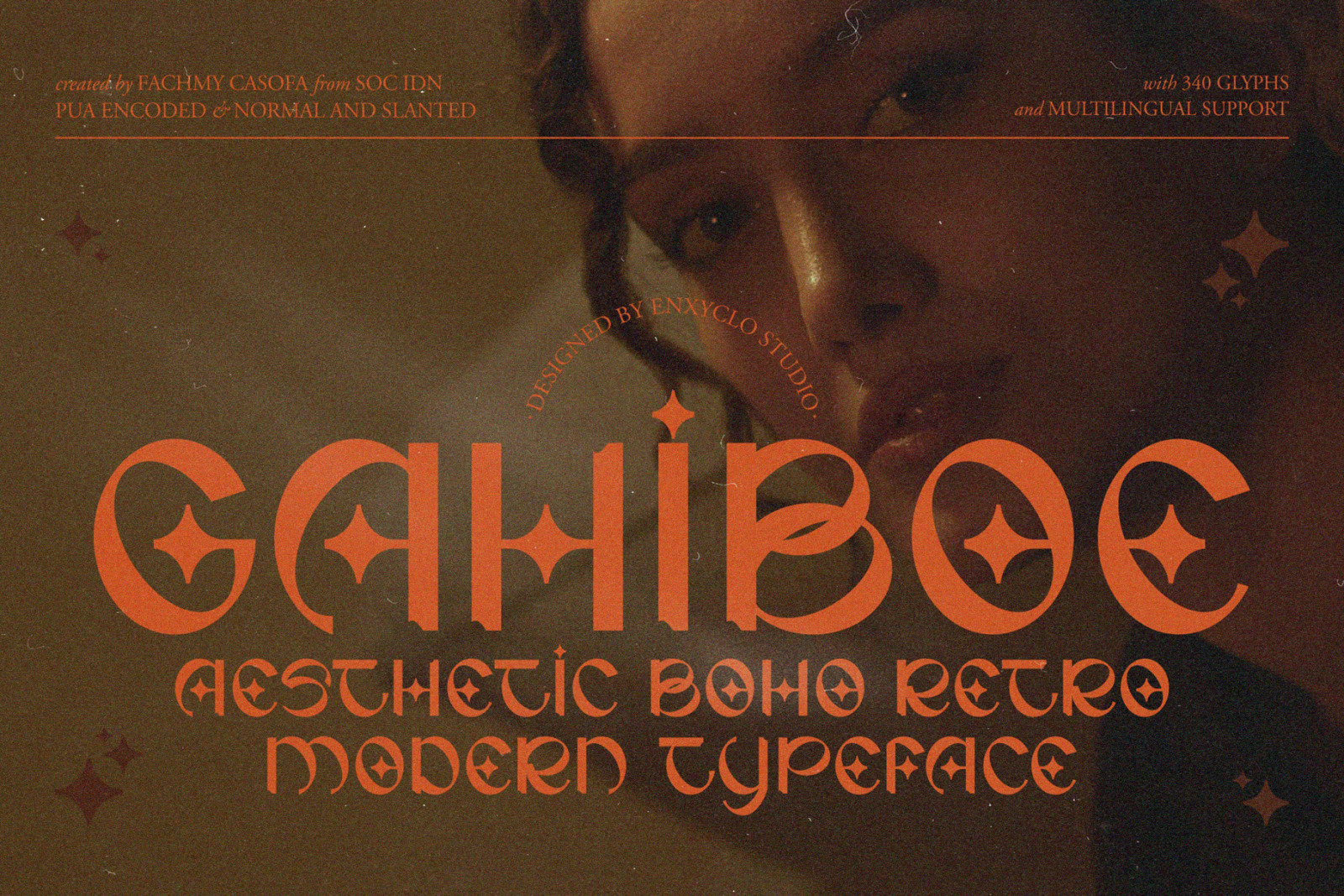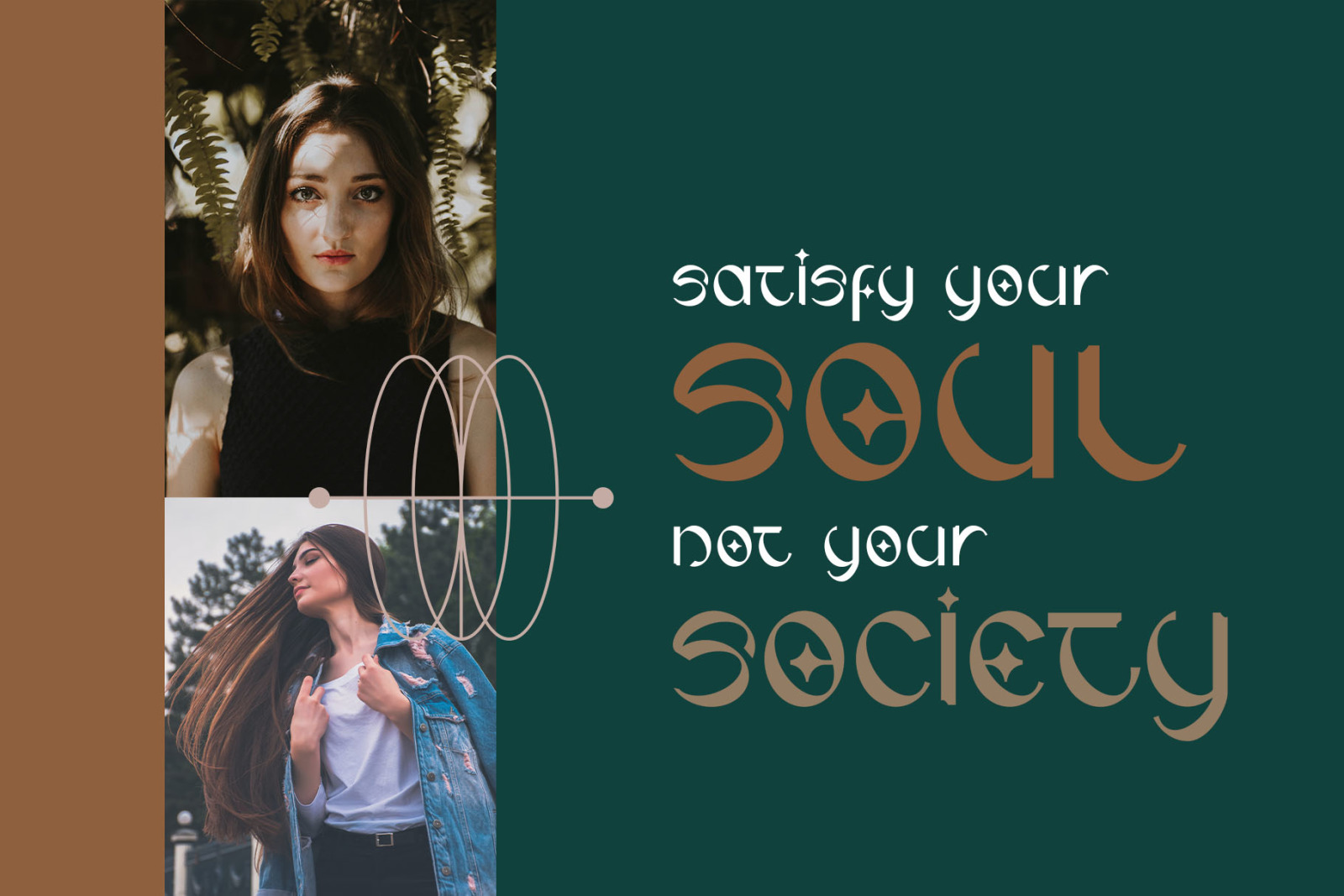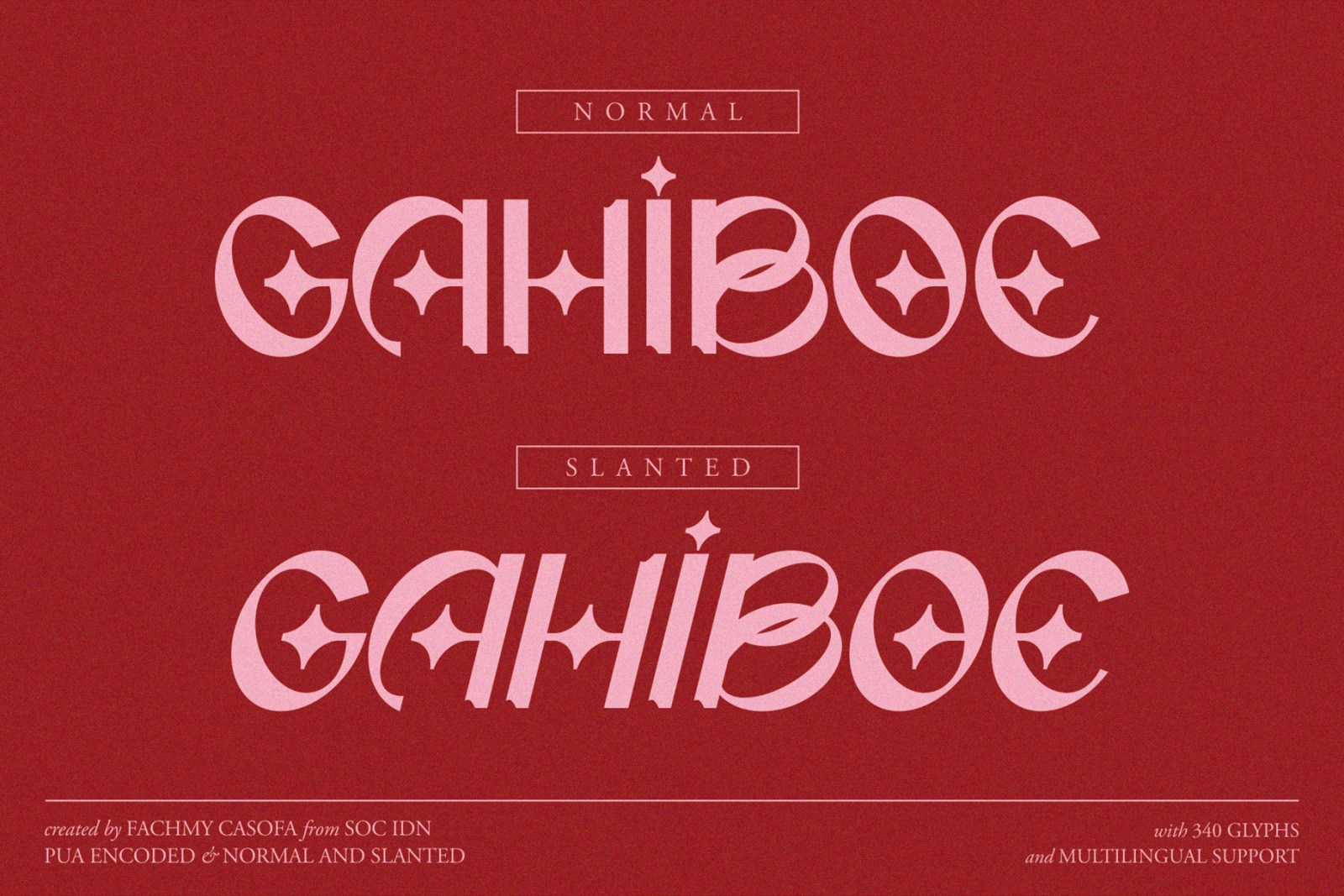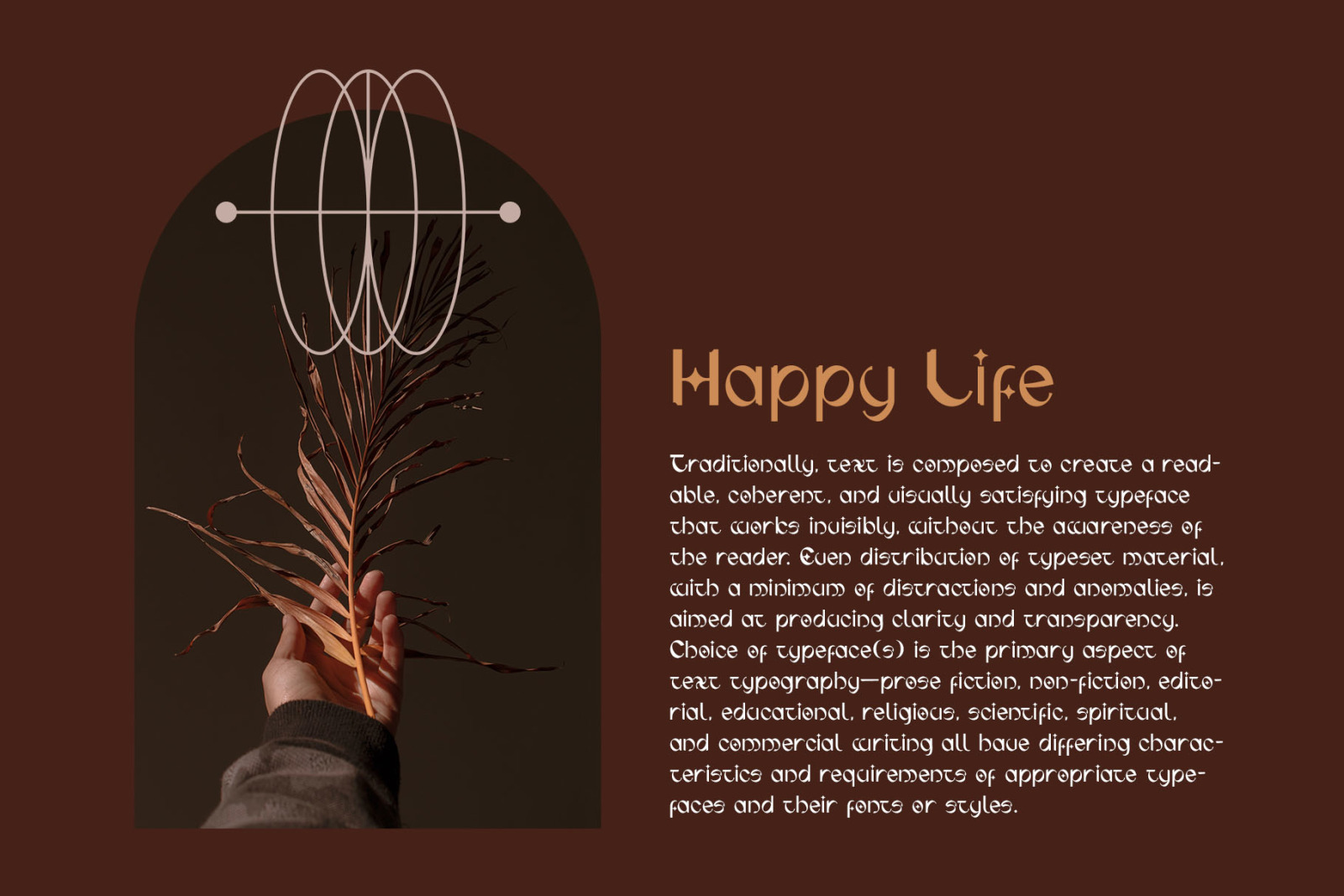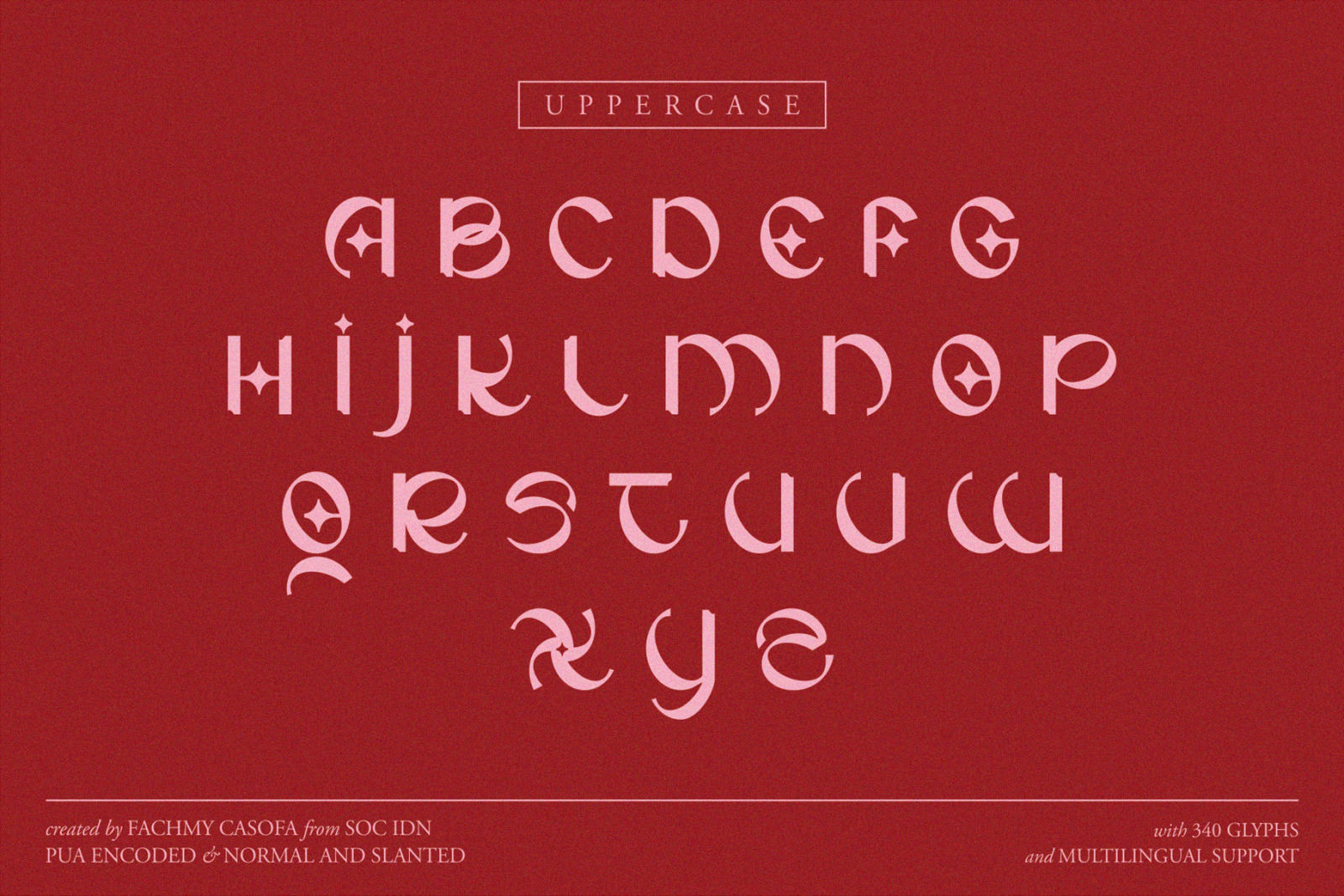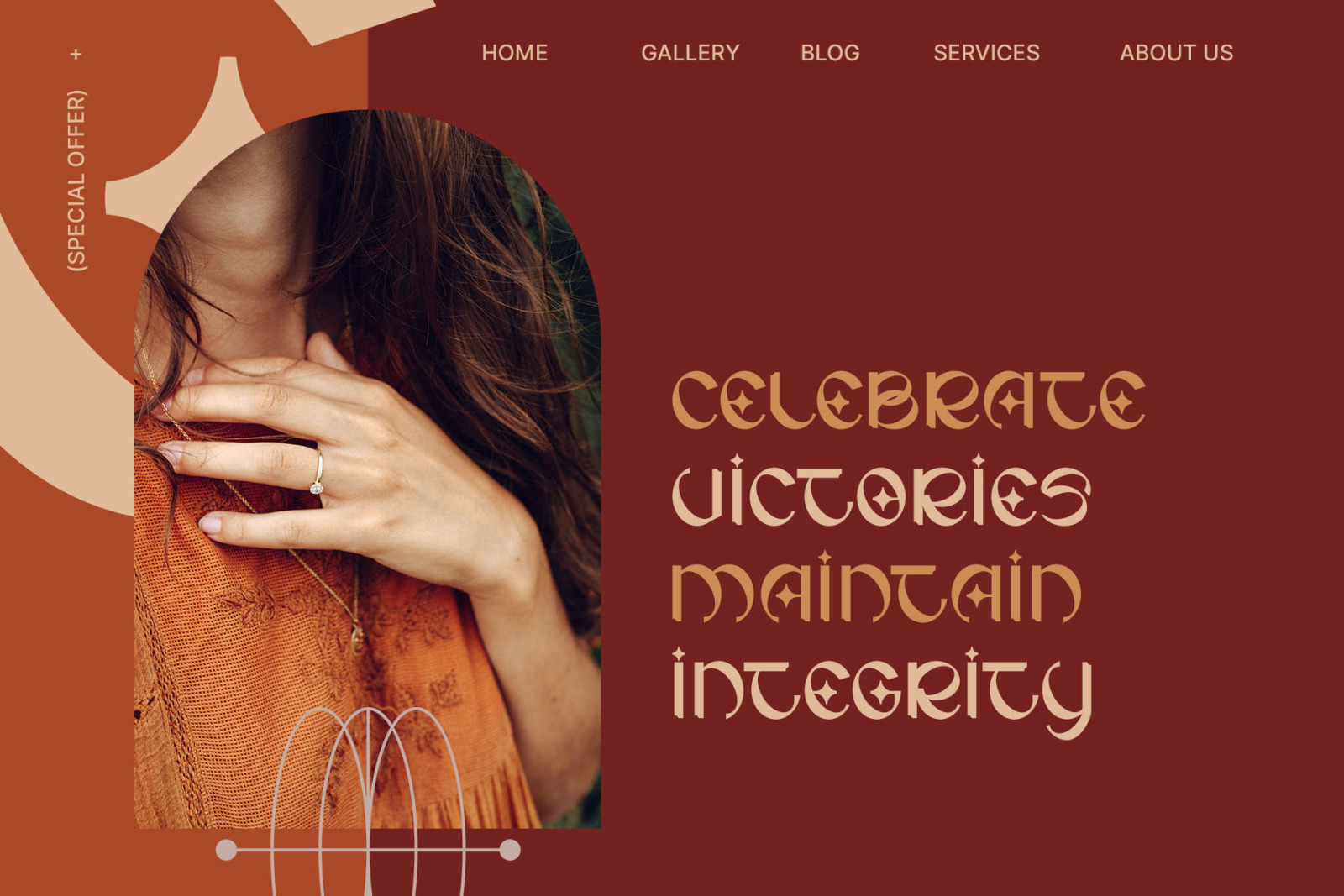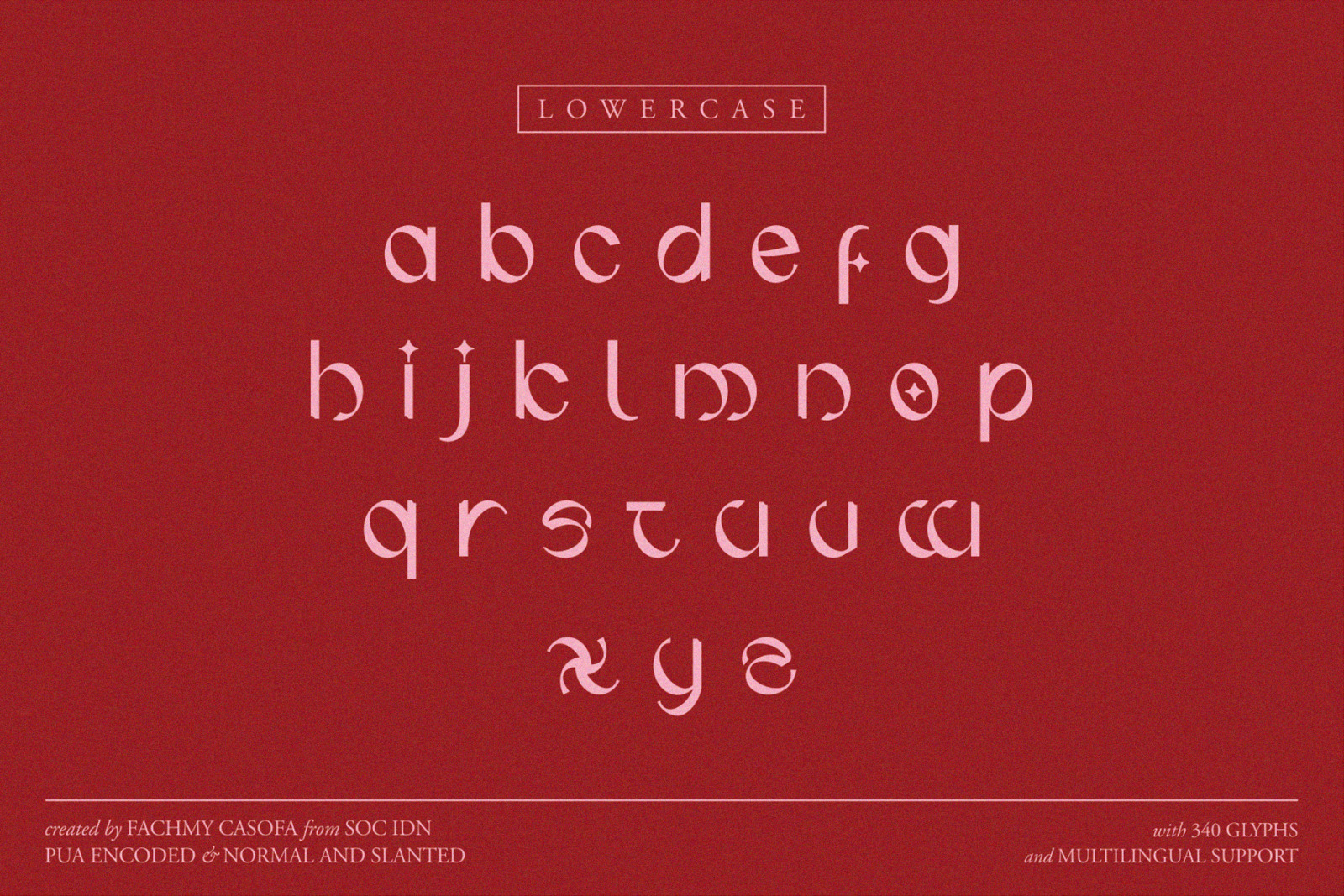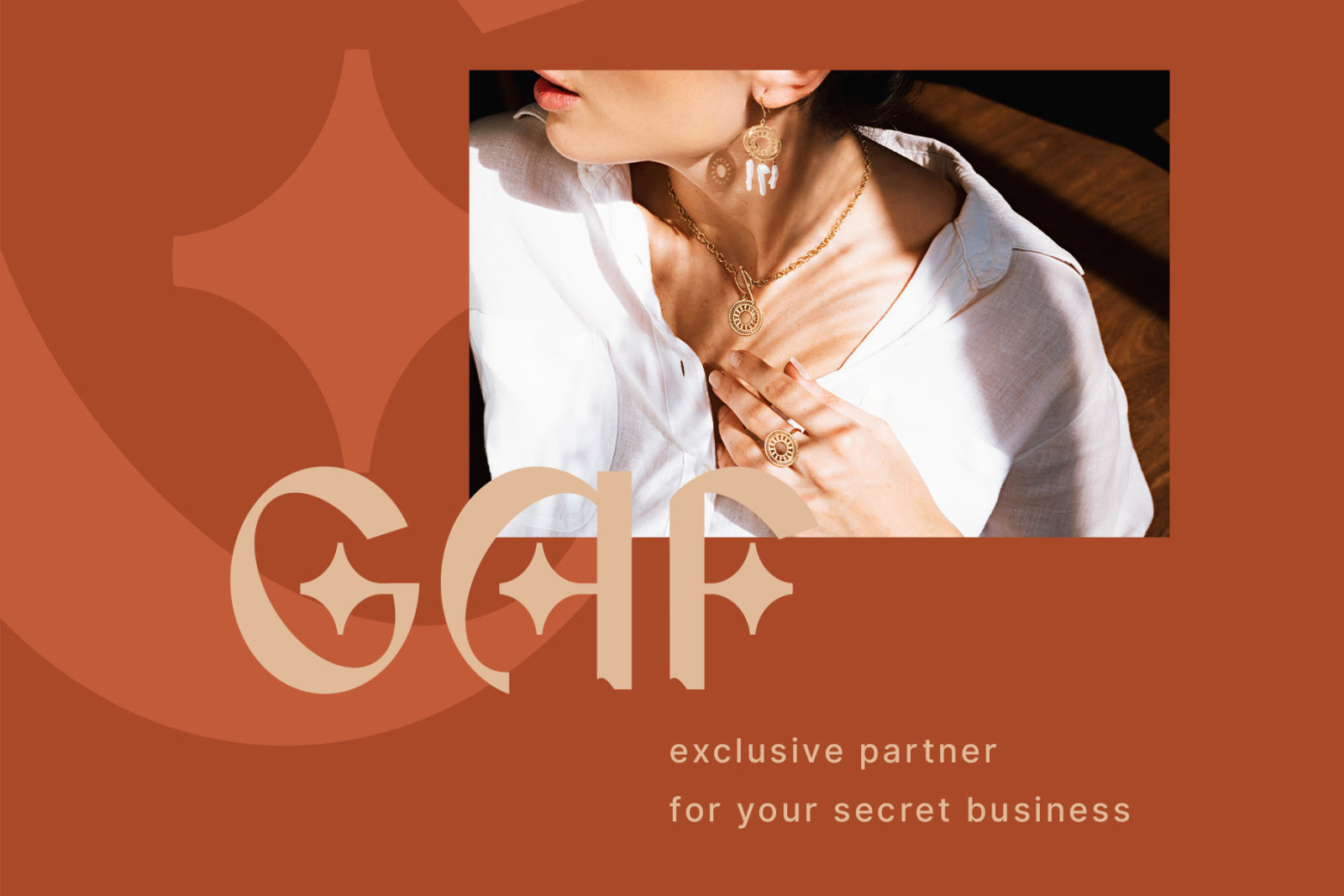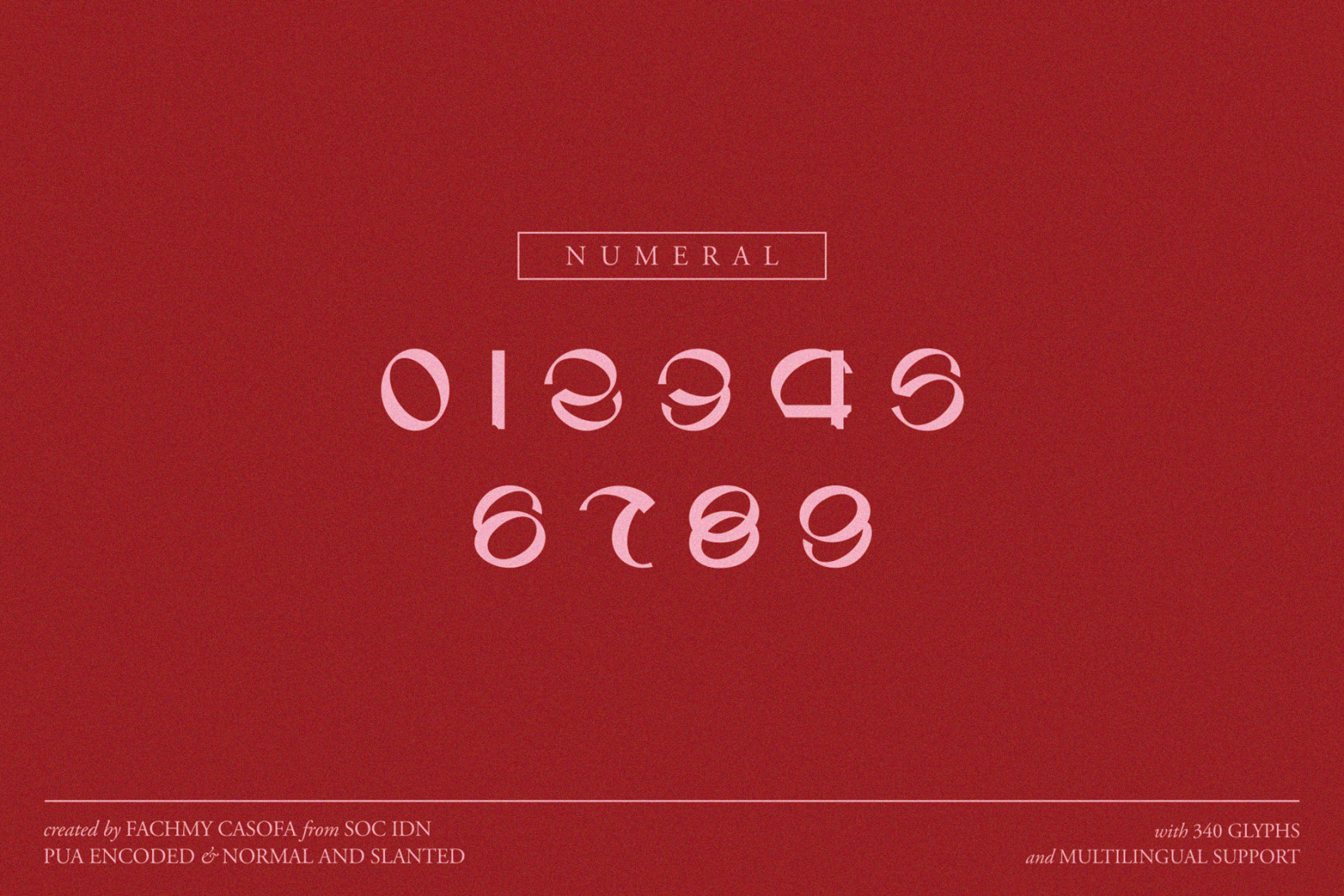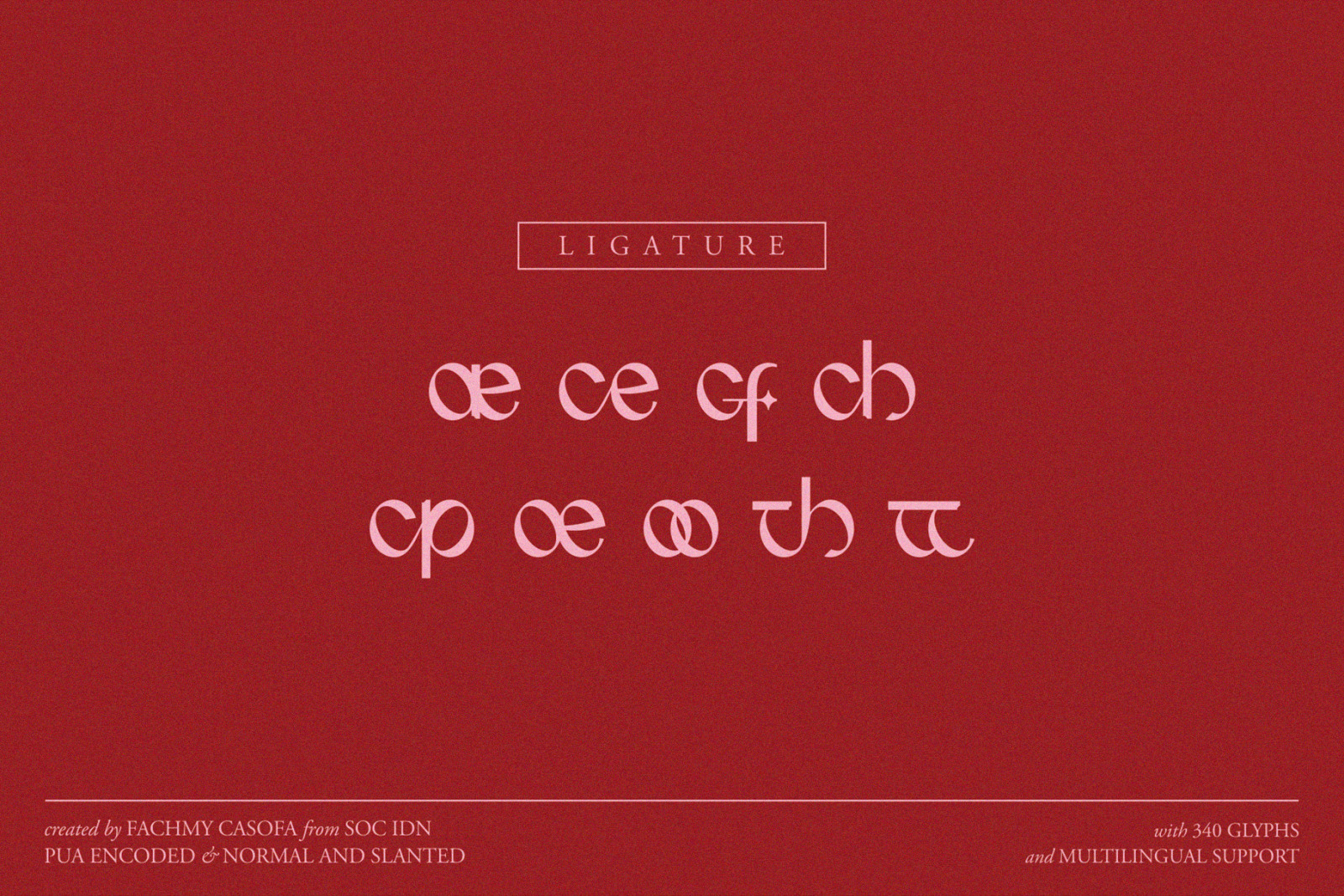
Gahiboe - Unique Boho Retro Font
GAHIBOE is aesthetic-vibes display font with bold and complex personality. It was purposely crafted to be used in large point sizes, although it doesn’t lose its magic in small point sizes. It is perfect for headline, billboard, magazines, website, titles, poster, branding, logos, social media posts, advertisements, product packaging, product designs, label, photography, watermark, invitation, stationery, etc. It is simple, easy to read, and works awesome in header. With this beautiful font, absolutely you can make your project stand out from the rest.
- 2 Styles: Regular & Slant
- Contains 340 Glyphs for Each Style (Total: 680 Glyphs)
- Uppercase and Lowercase
- Ligature, Numeral & Punctuation
- Symbols & Currency
- Support Languages (87): Afrikaans, Albanian, Asu, Basque, Bemba, Bena, Breton, Catalan, Chiga, Colognian, Cornish, Croatian, Czech, Danish, Dutch, Embu, English, Esperanto, Estonian, Filipino, Finnish, French, Friulian, Galician, German, Gusii, Hungarian, Indonesian, Irish, Italian, Kabuverdianu, Kalenjin, Kamba, Kikuyu, Kinyarwanda, Latvian, Lithuanian, Lower, Sorbian, Luo, Luxembourgish, Luyia, Machame, Makhuwa-Meetto, Makonde, Malagasy, Maltese, Manx, Meru, Morisyen, North Ndebele, Norwegian, Bokmål, Norwegian, Nynorsk, Nyankole, Oromo, Polish, Portuguese, Quechua, Romansh, Rombo, Rundi, Rwa, Samburu, Sango, Sangu, Scottish, Gaelic, Sena, Serbian, Shambala, Shona, Slovak, Soga, Somali, Spanish, Swahili, Swedish, Swiss German, Taita, Teso, Turkish, Upper, Sorbian, Uzbek (Latin), Volapük, Vunjo, Walser, Welsh, Western Frisian, Zulu.